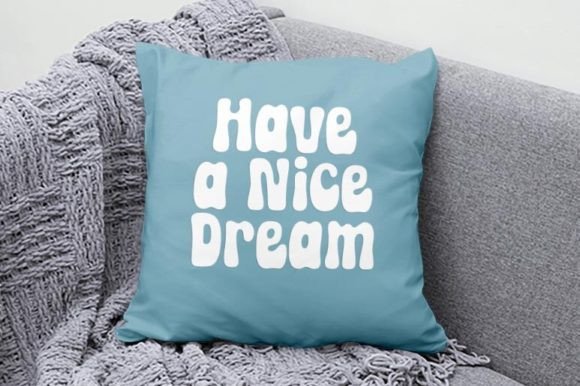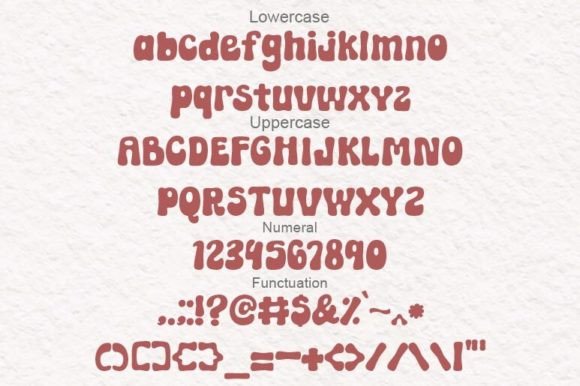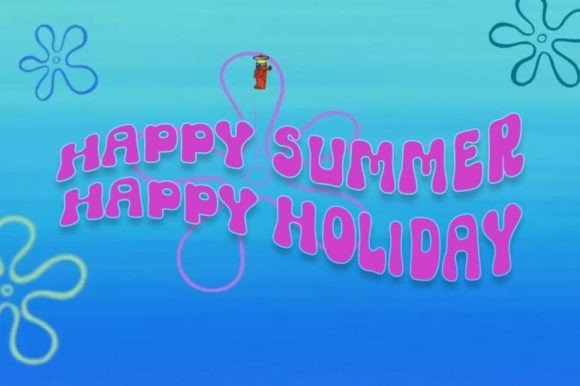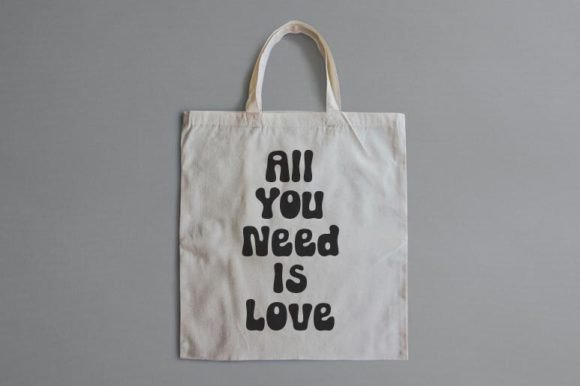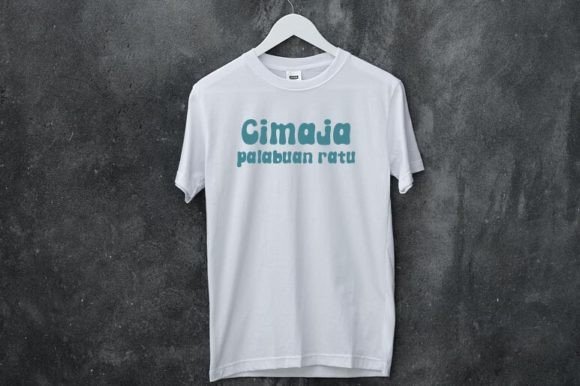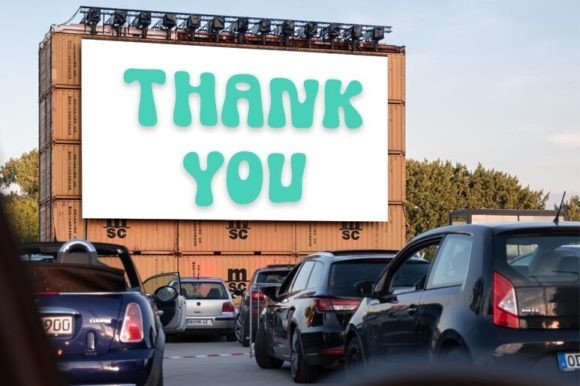
Introduction to Overgood Font
Have you ever found yourself staring at an old photograph, trying to recapture the essence of a bygone era? The faded colors, the distressed textures, and the nostalgic charm all combine to transport you to a different time. As designers, we often strive to evoke this same sense of nostalgia in our creative projects, and that’s where the Overgood Font comes in.
With its extraordinary retro vintage aesthetic, the Overgood Font is the perfect design resource for adding a special touch to any project. Whether you’re working on a branding campaign, a social media post, or a website, this high-quality font is sure to elevate your design to the next level.
What sets the Overgood Font apart is its versatility and ease of use. With a transparent background, it’s simple to layer and manipulate the font to create unique and eye-catching designs. And the best part? It’s available for free download, making it an invaluable asset for designers of all levels.
Key Features of Overgood Font
- High-quality, free download font ideal for creative projects
- Transparent background design resource perfect for background or overlay use
- Unique characteristic: Distinctive, modern design with a touch of elegance
- Perfect for designers looking for a high-quality, free design resource
Honest Review: Overgood Font
I recently stumbled upon the Overgood Font while searching for a unique design resource for a creative project. As a designer, I was excited to dive in and see what this font had to offer.
What works well: ✨ The Overgood Font is free to download, which is a huge plus in my book. It’s also incredibly easy to use, even for those with limited design experience. The font comes with a transparent background, making it perfect for adding text overlays to images or videos. I also appreciate the high-quality design, which makes it suitable for both personal and commercial projects.
Limitations: ⚠️ While the Overgood Font is free, it’s not open-source, which might be a concern for some designers who prefer to use open-source fonts. Additionally, the font only comes in a few weights, which might limit its versatility for more complex design projects.
Overall impression: I’m thoroughly impressed with the Overgood Font. Its unique design and high-quality construction make it a valuable addition to any designer’s toolkit. Whether you’re working on a personal project or a commercial design, the Overgood Font is definitely worth checking out.
- Only a few weights available
The Overgood Font is a versatile design resource ideal for creative projects that require a high quality, unique look. This free download offers a transparent background, making it perfect for overlaying on images or videos.
Tips for Getting the Most Out of the Overgood Font
Experiment with different font sizes, colors, and styles to create a unique look for your creative project. Use the transparent background to overlay the font on images or videos for a striking effect.
The Overgood Font is ideal for use in creative projects such as logo designs, social media graphics, and presentation slides. Its unique style and high quality make it a valuable design resource for any creative project.
Comparison to Overgood Font: Alegreya Sans has a more modern and minimalist feel compared to the Overgood Font’s classic, serif style. While Overgood Font is great for traditional designs, Alegreya Sans excels in modern and creative projects.